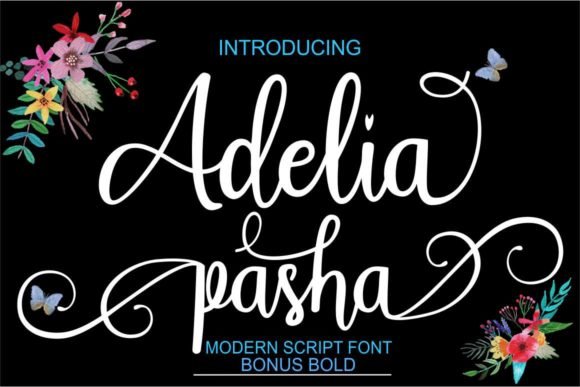
Discover the Perfect Script for Your Next Design Project
You know that moment when a single font can elevate your entire design project? The moment when you find the perfect script to add a touch of personality and whimsy? That’s exactly what we’re excited to share with you today: the Adelia Pasha Font.
This unique script font is more than just a pretty face – it’s a game-changer for designers looking to add a modern twist to their projects. With its playful feel and versatility, Adelia Pasha Font is the perfect tool to help you stand out from the crowd. Whether you’re designing a logo, a brand identity, or a marketing campaign, this font is sure to bring a fresh and exciting vibe to your work.
Adelia Pasha Font Key Features
- Unique Characteristics: The Adelia Pasha Font features elegant, cursive script with intricate details, making it suitable for formal invitations, wedding stationery, and other high-end designs.
- Font Style: Available in Regular and Bold styles, providing flexibility for designers to create visually appealing compositions.
Adelia Pasha Font Review
I’ve had the chance to work with the Adelia Pasha Font, and I must say, it’s a unique and beautiful addition to any design project. Here’s what I think works well: ✨
- Exotic flair: The Adelia Pasha Font has an unmistakable exotic feel to it, perfect for projects that need a touch of Middle Eastern flair.
- High-quality glyphs: The font’s glyphs are well-designed and detailed, making it a great choice for body text and headings.
- Good for branding: With its distinctive look, the Adelia Pasha Font is perfect for creating a strong brand identity.
However, there are some limitations: ⚠️
- Readability: While the font is beautiful, its unique style can make it difficult to read in certain situations, especially in smaller sizes or when used for large blocks of text.
- Lack of versatility: The Adelia Pasha Font is quite distinct and may not be the best choice for projects that require a more neutral or timeless look.
Overall, I think the Adelia Pasha Font is a great addition to any designer’s toolkit, but it’s essential to use it thoughtfully and consider the project’s needs and audience. With careful selection and use, it can add a touch of elegance and sophistication to any design.
Tips for Getting the Most Out of Adelia Pasha Font
Use Adelia Pasha Font for titles, headings, and body text to create a consistent and elegant look.
Combine Adelia Pasha Font with other elegant fonts to create a unique and sophisticated design.
Experiment with different font sizes and colors to add visual interest to your design.
Adelia Pasha Font is suitable for a wide range of designs, including:
Business cards and brochures
Website headers and footers
Book covers and magazine titles
Alternatives to Adelia Pasha Font
Ostrich Sans is a modern sans-serif font suitable for digital and print media. It features clean lines, geometric shapes, and a neutral tone, making it perfect for body text and headlines. Use Ostrich Sans for projects that require a professional and approachable look.
Compared to Adelia Pasha Font, Ostrich Sans has a more geometric and minimalist feel, whereas Adelia Pasha Font has a more elegant and refined appearance.
Montserrat is a sans-serif font designed specifically for urban environments. It features a strong and geometric shape, making it ideal for headlines and titles. Use Montserrat for projects that require a bold and modern look.